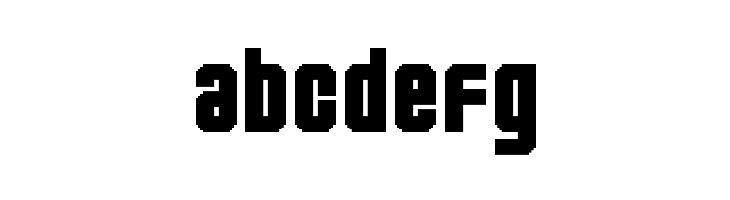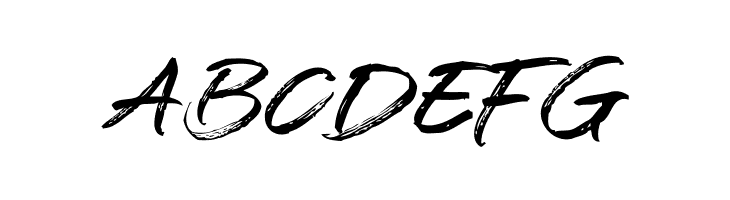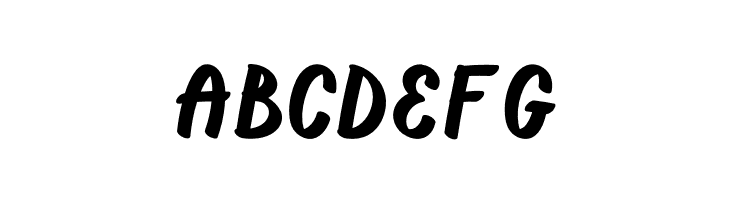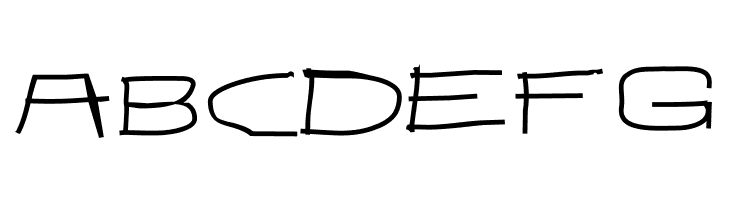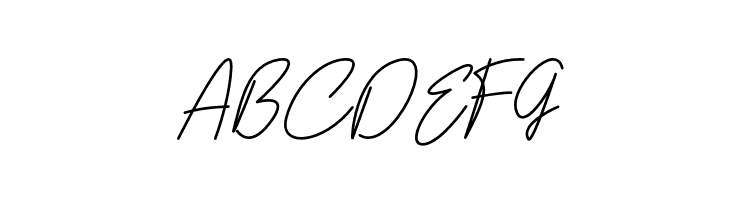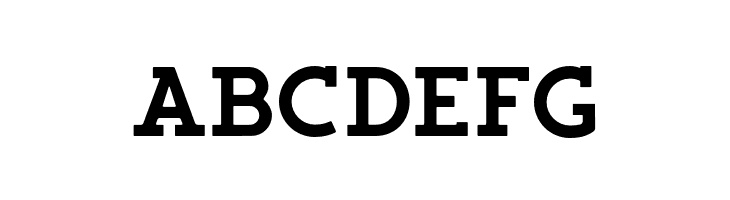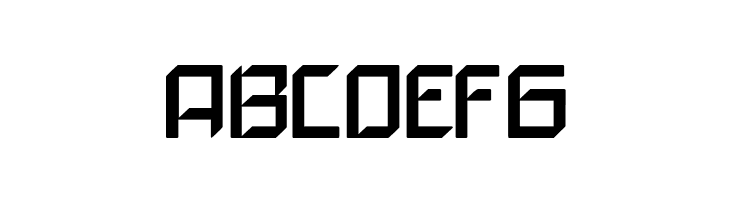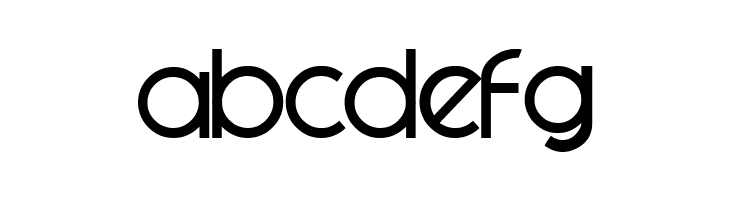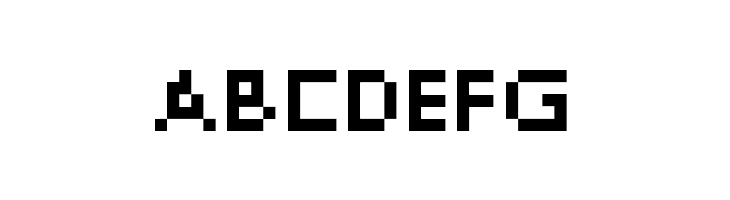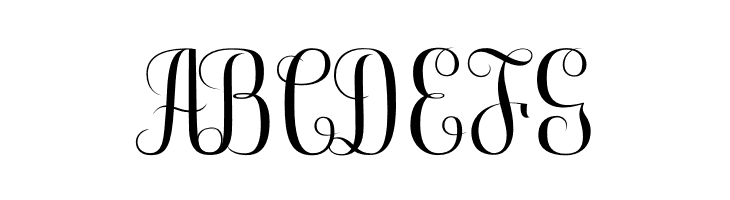
• Pixeldown
• Raidho Theodings
A decorative, boxed font with a modern and geometric style.
• Sentury
A dynamic, brush-style font with an expressive, handwritten look.
• Antonio Bold
A bold, modern sans-serif font with strong vertical lines and uniform strokes.
• CasperMarkerDaFontRegular
A bold, playful handwritten font with smooth curves and thick strokes.
• Misrelly
A dynamic brush script font with fluid, expressive strokes.
• Reqtangular
A bold, geometric font with a futuristic and digital aesthetic.
• Qawber
A playful, hand-drawn font with irregular strokes and a casual style.
• Elinga Outline
A bold outline font with a modern yet vintage flair, featuring hollow interiors and consistent character width.
• Westhamp
A cursive, handwritten font with elegant, flowing strokes.
• SalveationSlab
A bold slab serif font with strong, block-like serifs and a modern yet classic feel.
• narita
• future mood
A modern, geometric font with clean lines and a friendly appearance.
• Strike Block
Bold, expressive designs combining typography with illustrative elements for a dynamic, rebellious aesthetic.
• DePixel-Illegible
A pixelated, retro-style font inspired by early digital typography.
• Free Monogram